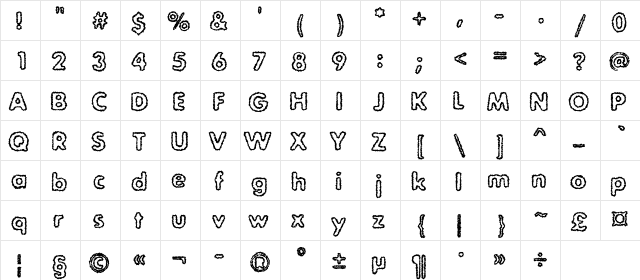
ExposureRoughOutlineC Regular
Design Context for ExposureRoughOutlineC Typeface
ExposureRoughOutlineC embraces imperfection — its rough, textured character adds raw authenticity to designs that want to feel lived-in and unconventional.
A strong fit for alternative music projects, graffiti-adjacent design, and anything that deliberately resists polish.
Pro Tip: Use ExposureRoughOutlineC at larger sizes where the texture and irregularity of each letterform can be clearly seen — it loses its character at small sizes.